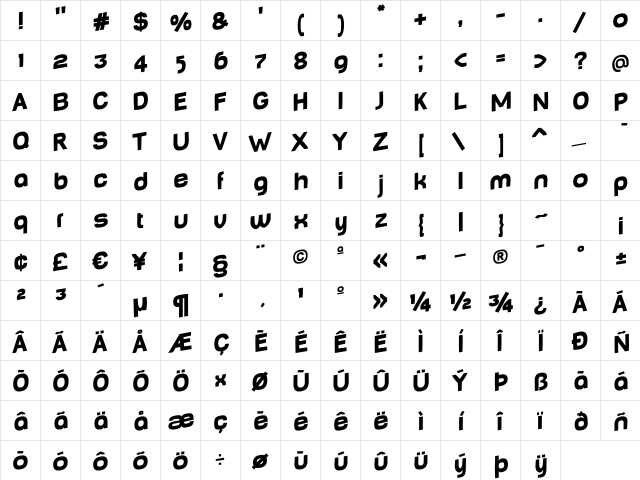
Baby MineFat Jumping Regular
Design Context for Baby MineFat Jumping Typeface
Baby MineFat Jumping offers clean, dependable letterforms without strong stylistic allegiance, making it a practical choice for designers who need flexibility.